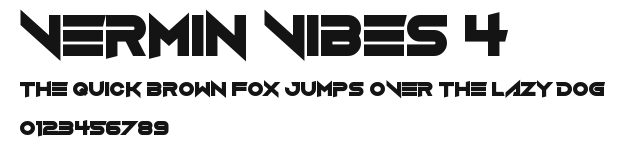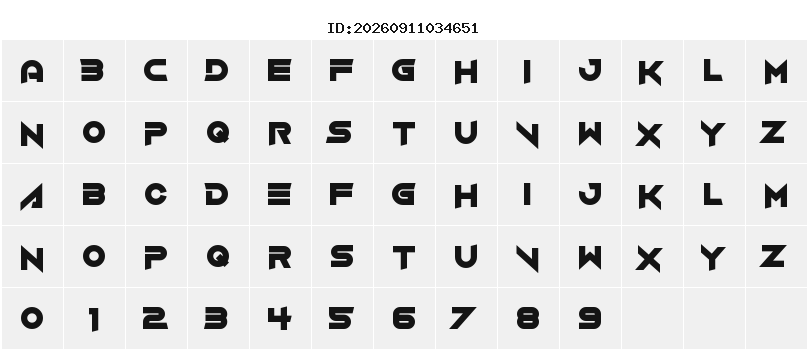
Vermin Vibes 4 Preview
• Font Name: Vermin Vibes 4
• Full Font Name: Vermin Vibes 4
• Designer: AM
About Vermin Vibes 4.otf
Vermin Vibes 4.otf is a modern, elegant sans-serif font designed for ultimate readability and visual harmony. Perfect for branding, headlines, web design, and print materials.